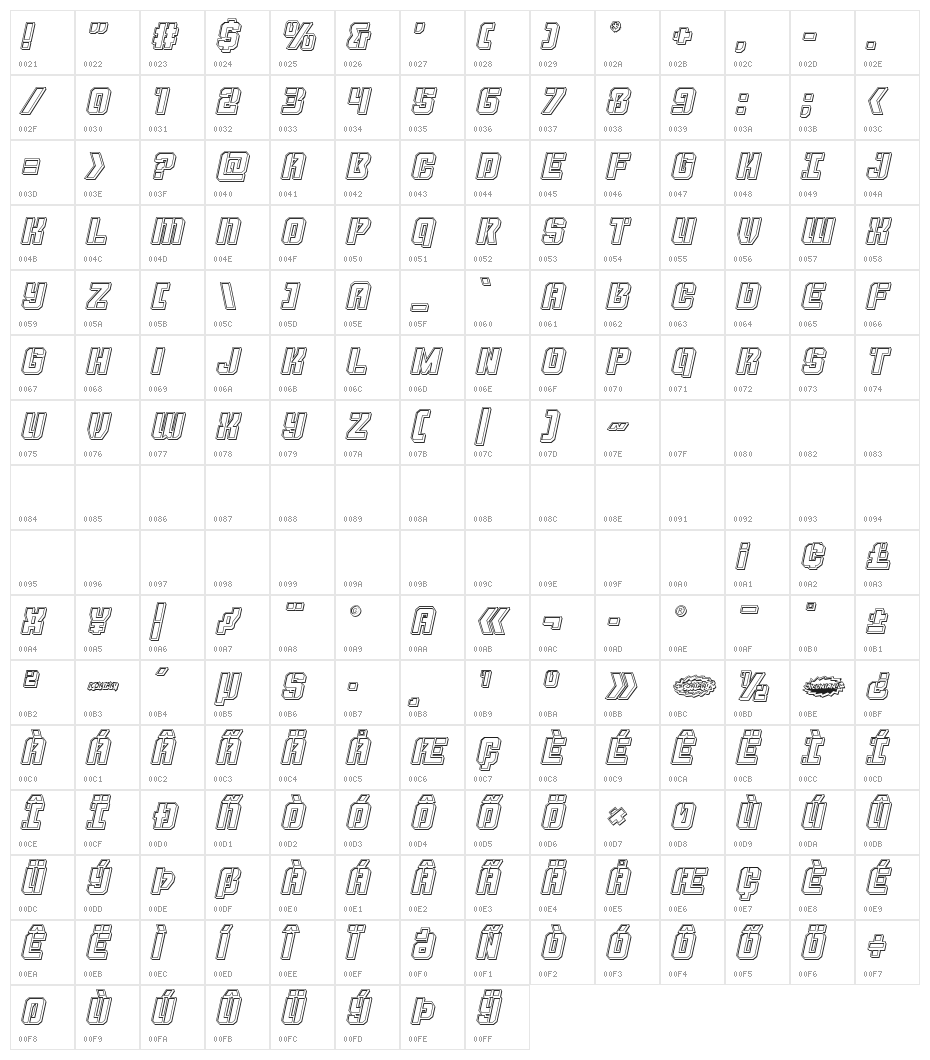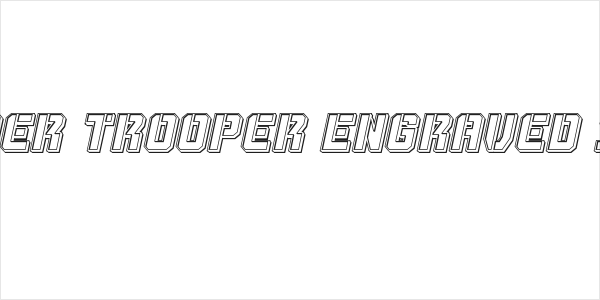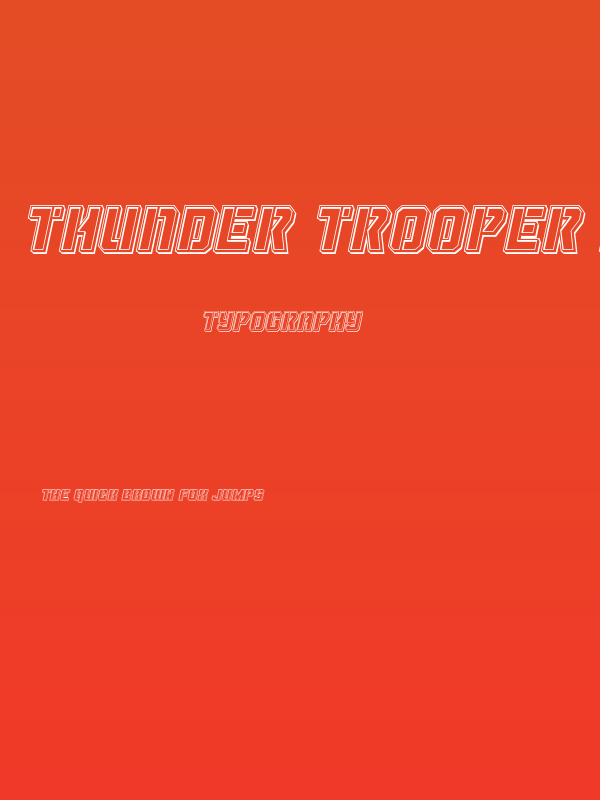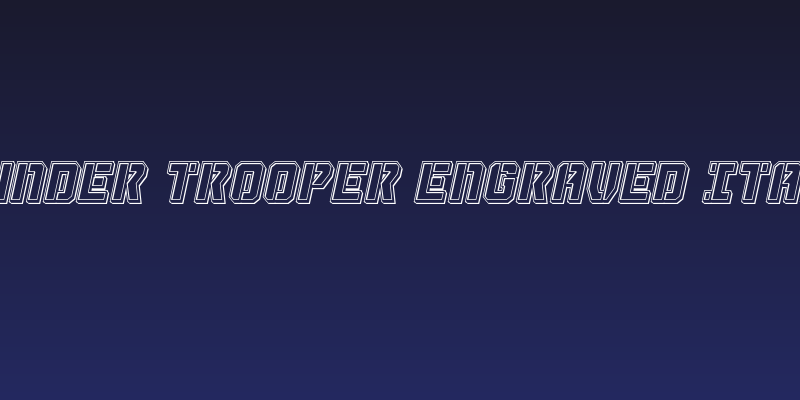
Thunder Trooper Engraved Italic Font
Thunder Trooper Engraved Italic Description
This font features a bold, geometric design with a three-dimensional engraved effect. The characters are outlined with a double line, giving them a distinct, futuristic appearance. The italic slant adds a dynamic and energetic feel, making it stand out in any design. The uppercase and lowercase letters maintain a consistent style, with sharp angles and clean lines. Numbers and special characters are designed to match the bold and structured aesthetic, ensuring uniformity across all text elements.
| Proposed Projects | Ideal for sci-fi themed posters, video game titles, and futuristic branding projects. |